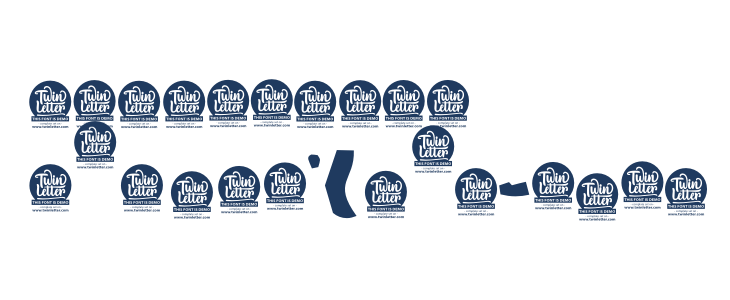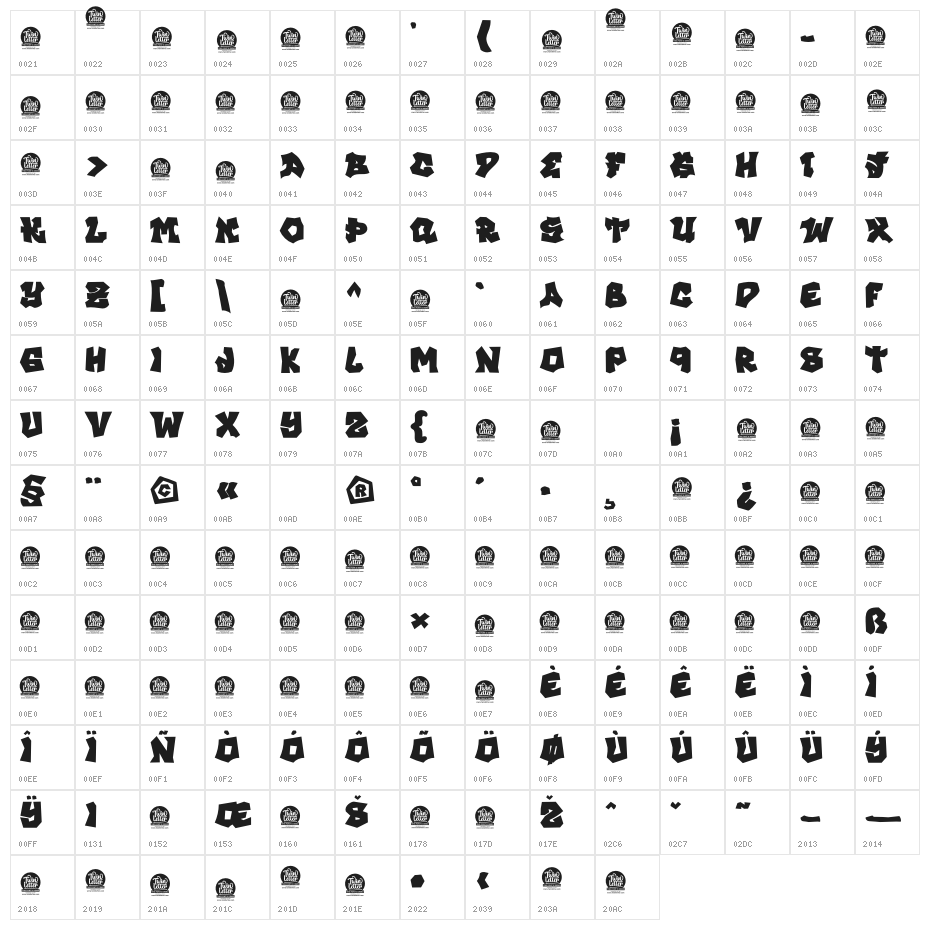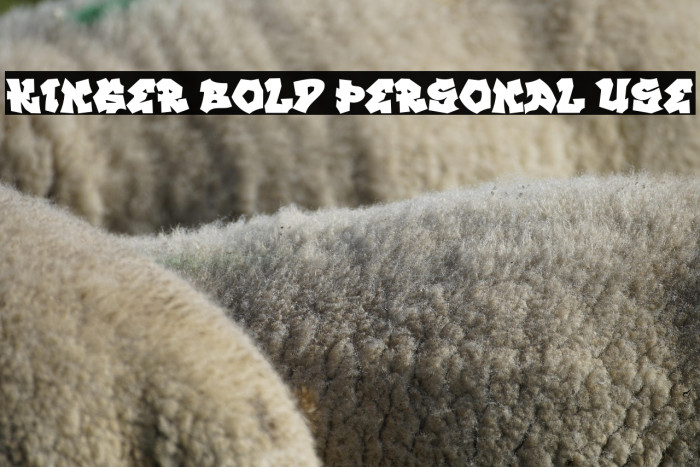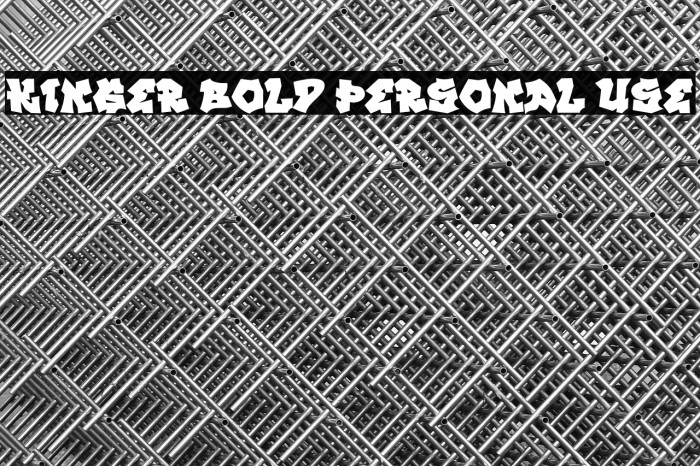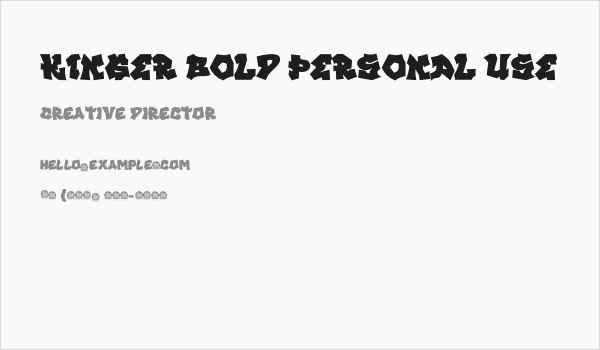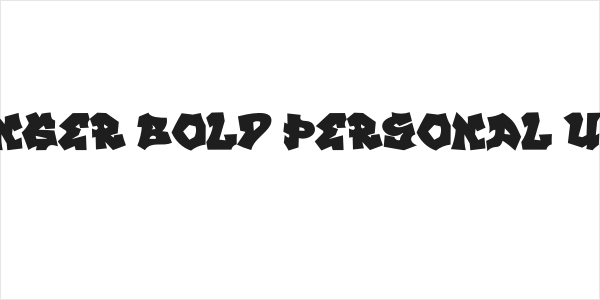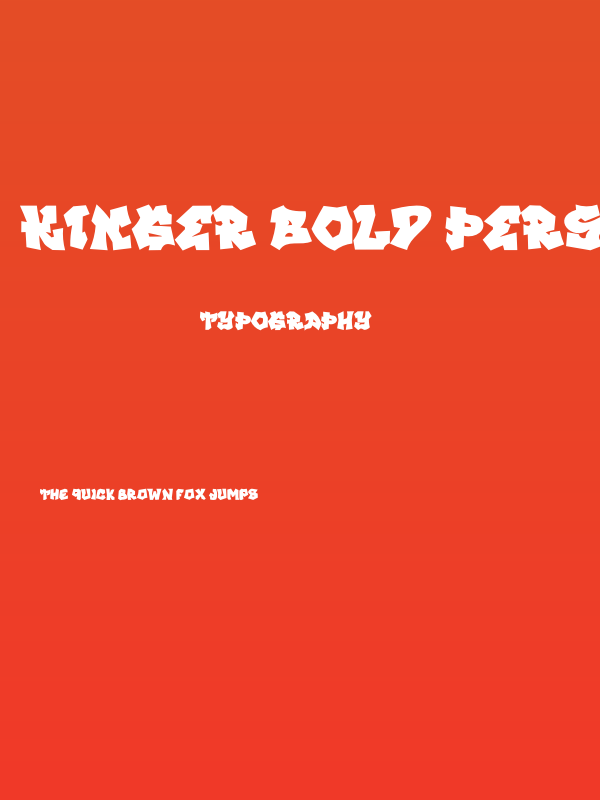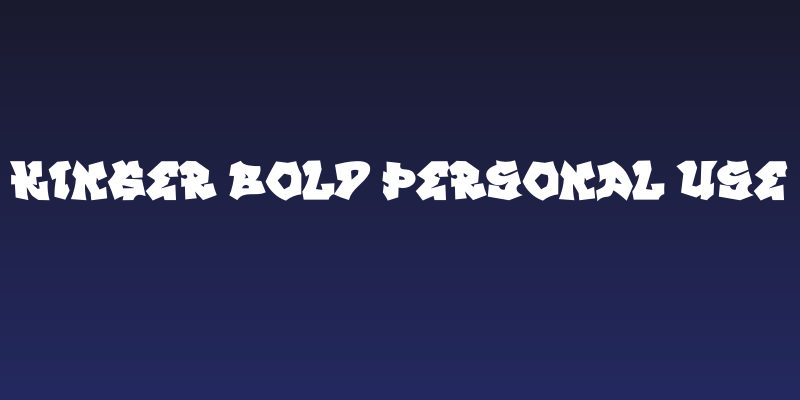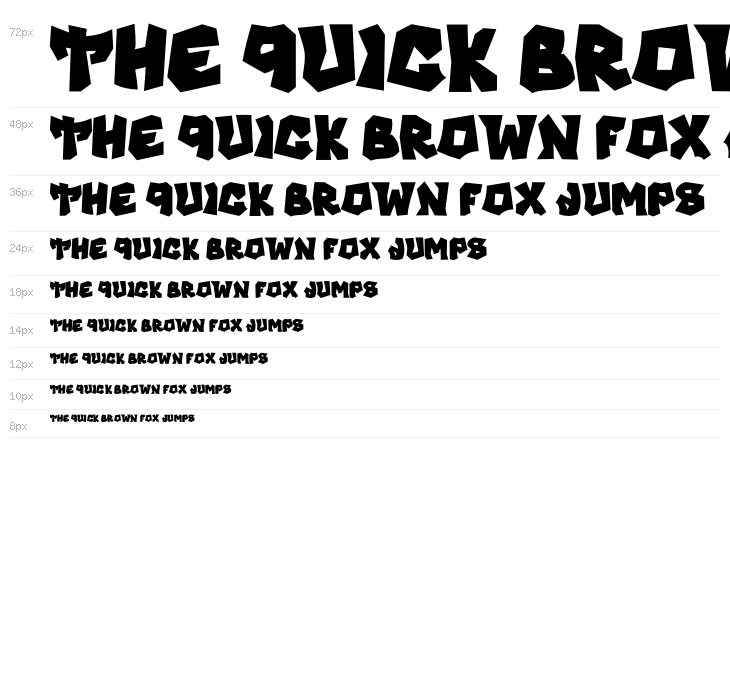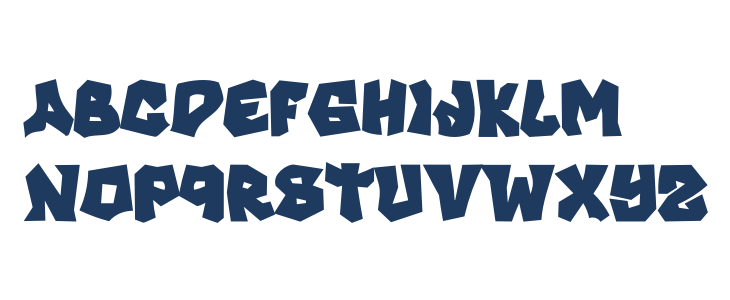
KINGER BOLD PERSONAL USE Font
KINGER BOLD PERSONAL USE Description
This bold and dynamic font features a striking, angular design with a strong presence. Each character is crafted with sharp edges and a geometric style, creating a sense of movement and energy. The uppercase letters are particularly bold, with a blocky appearance that commands attention. The lowercase letters maintain the same angular aesthetic, ensuring consistency throughout the typeface. The numbers and special characters are equally bold and stylized, making them stand out in any design. This font is ideal for projects that require a bold statement, such as posters, logos, or headlines.
| Proposed Projects | Ideal for posters, logos, headlines, and any design requiring a bold statement. |